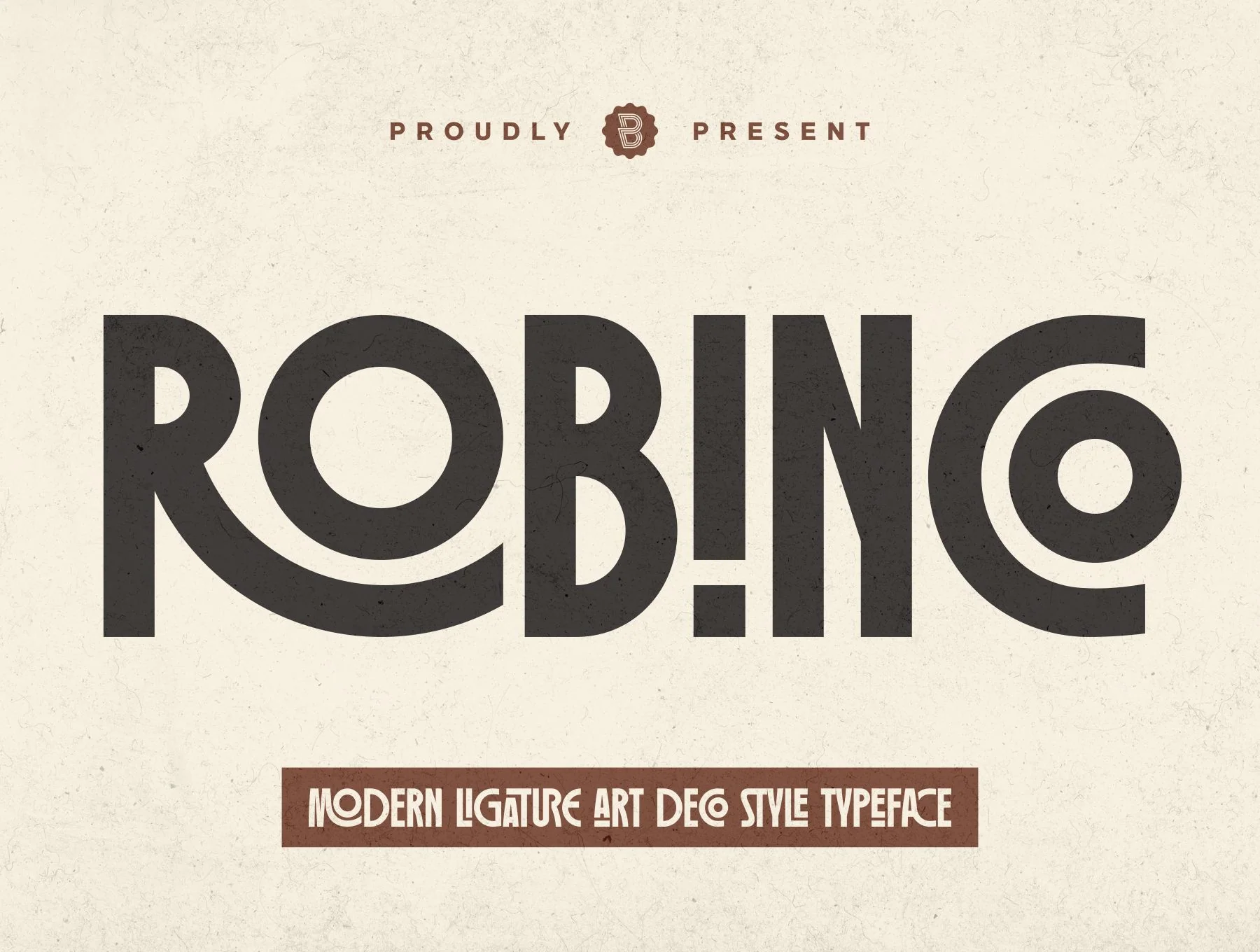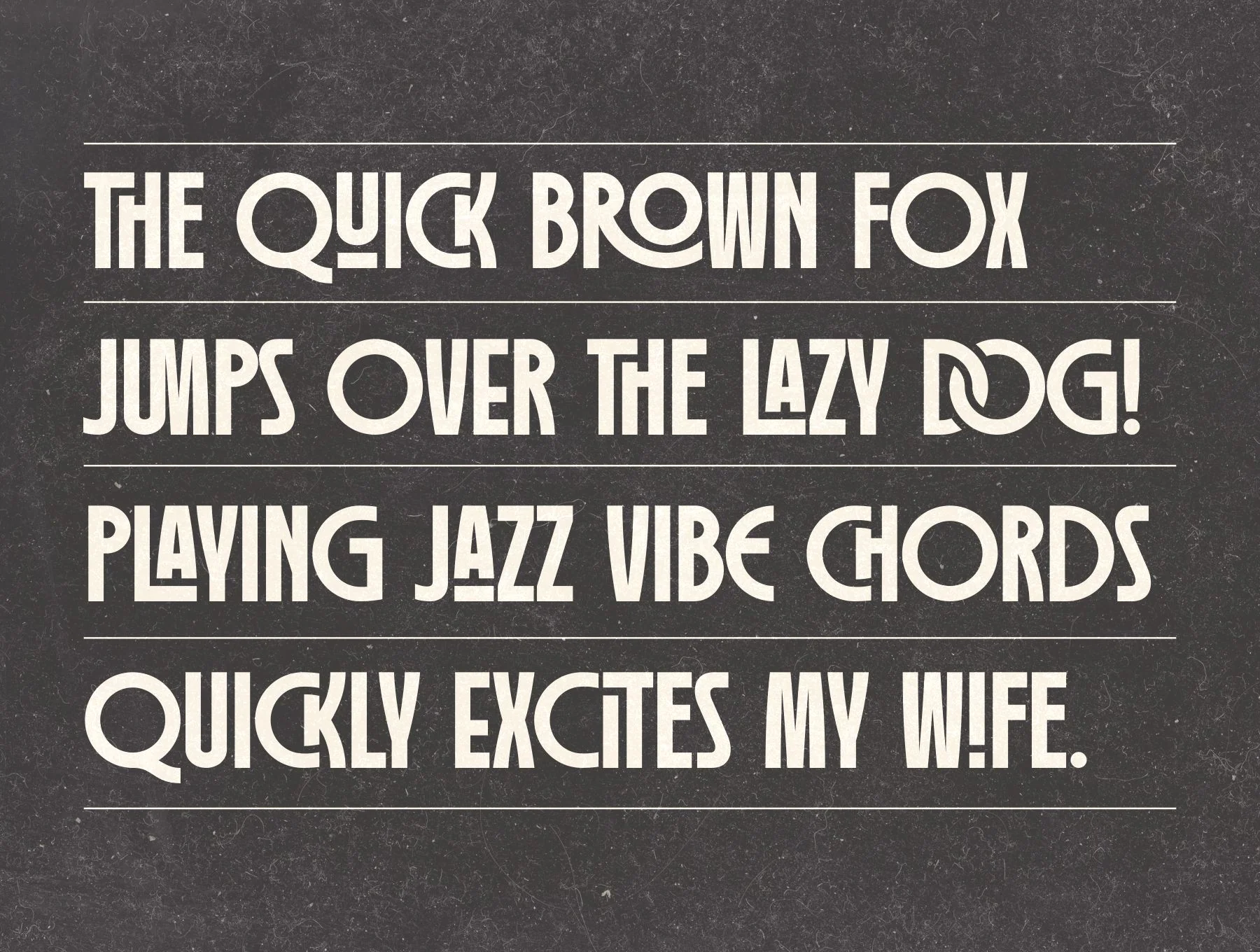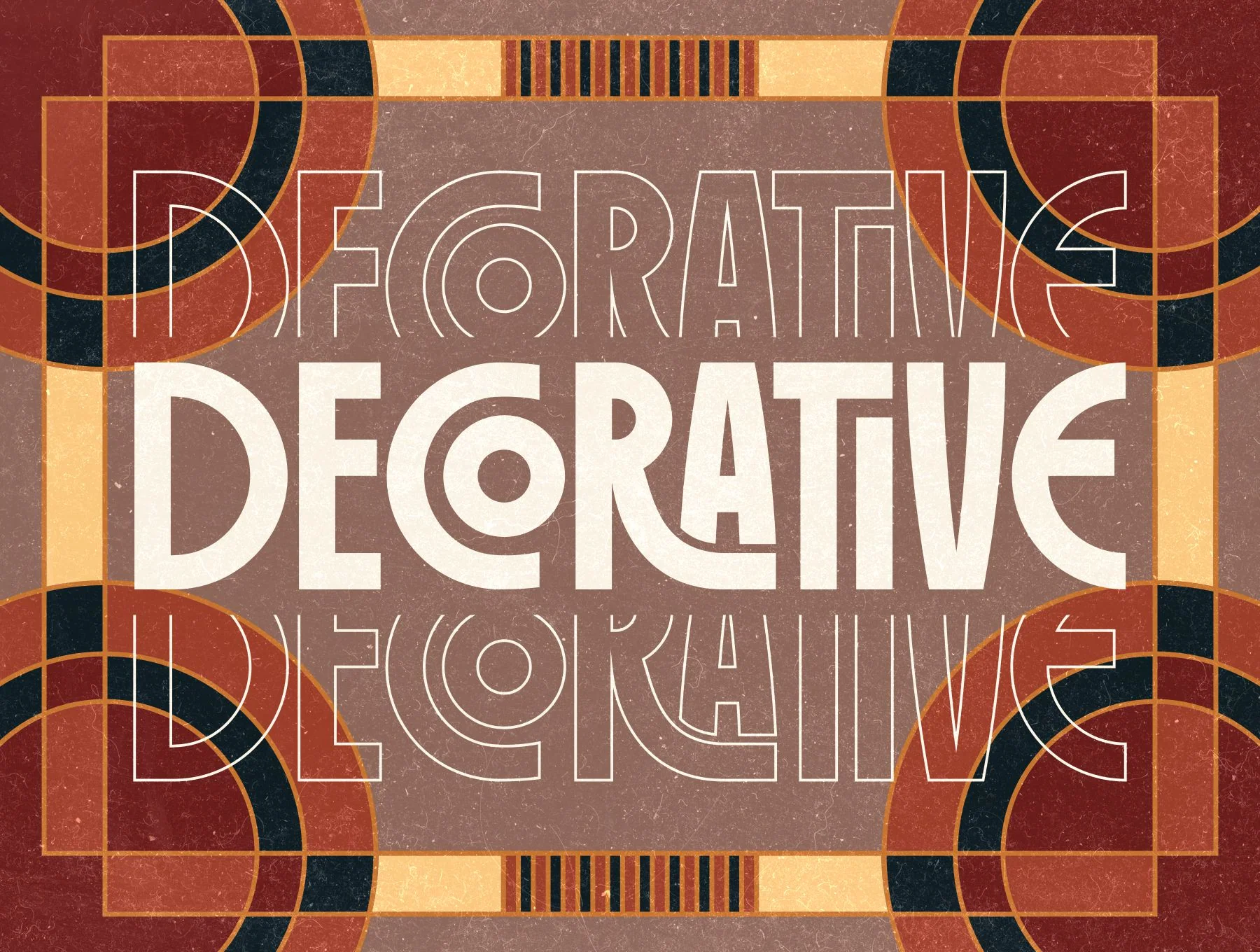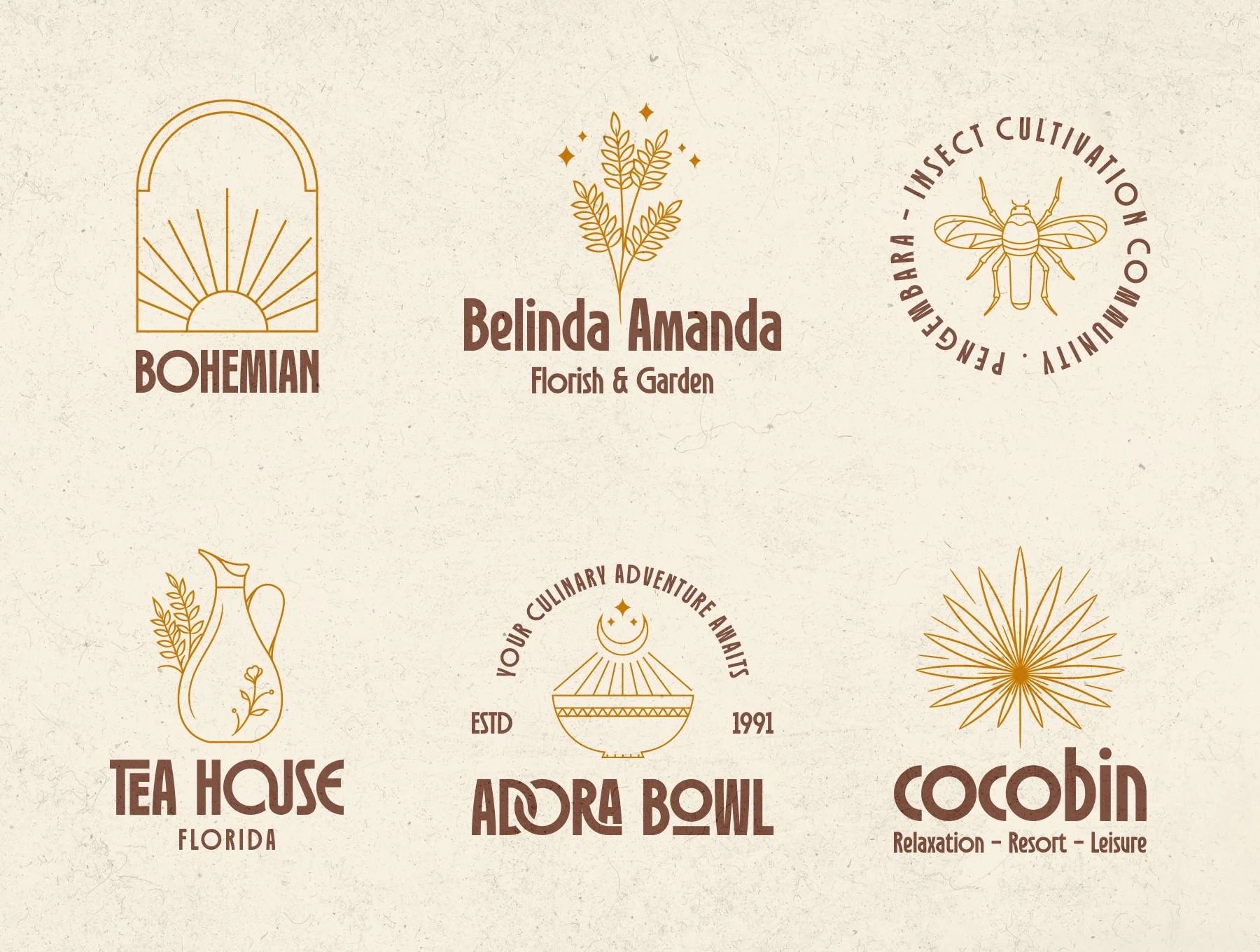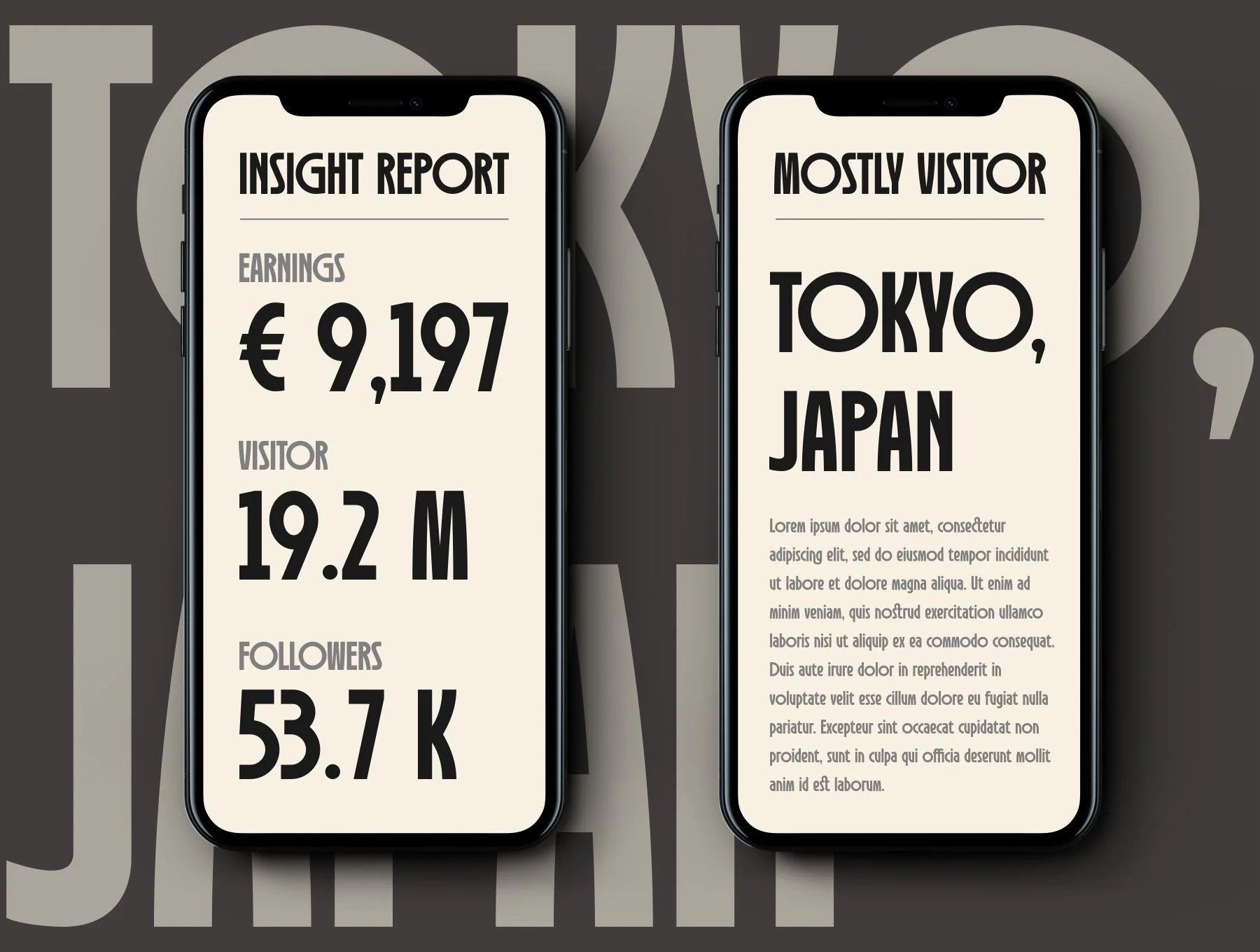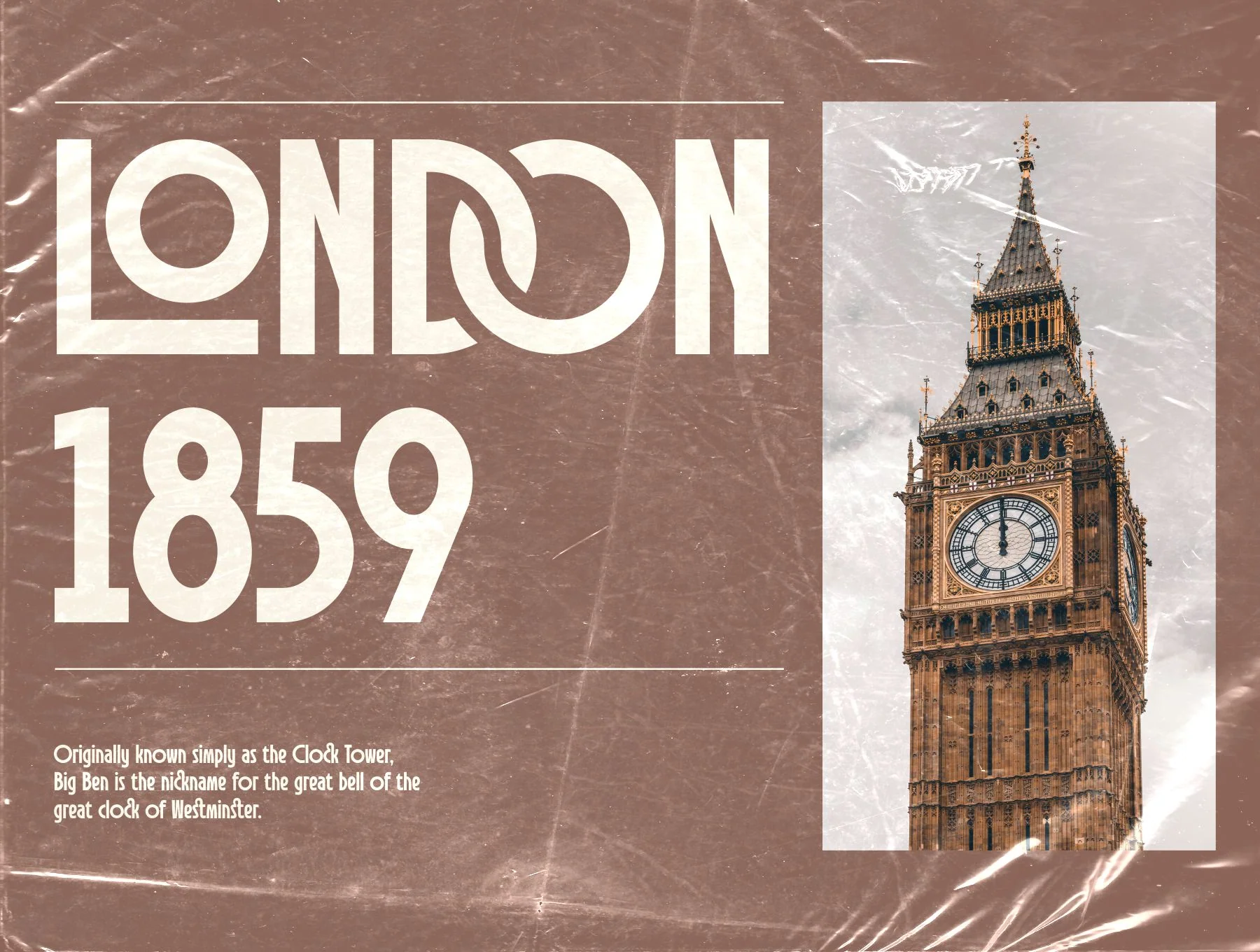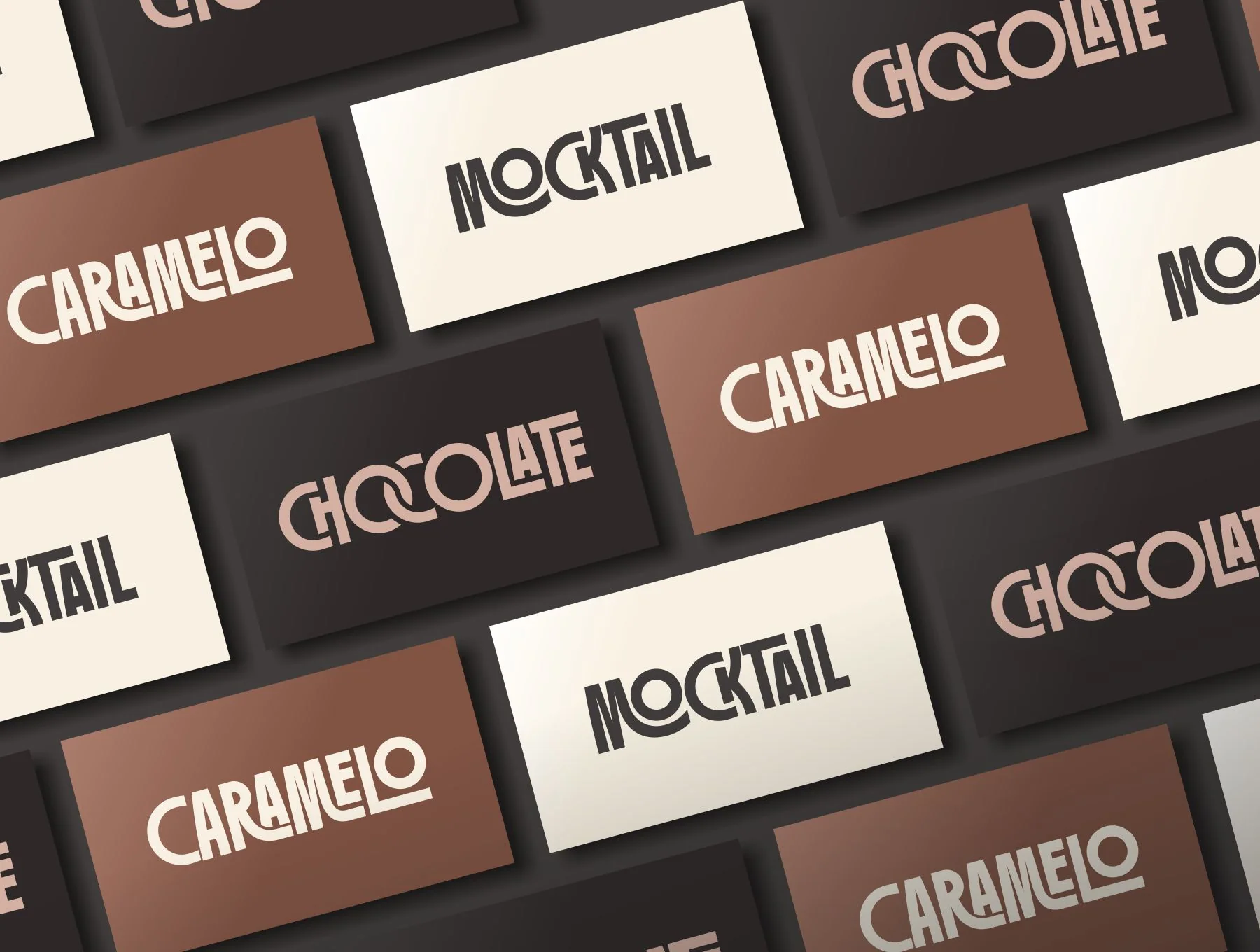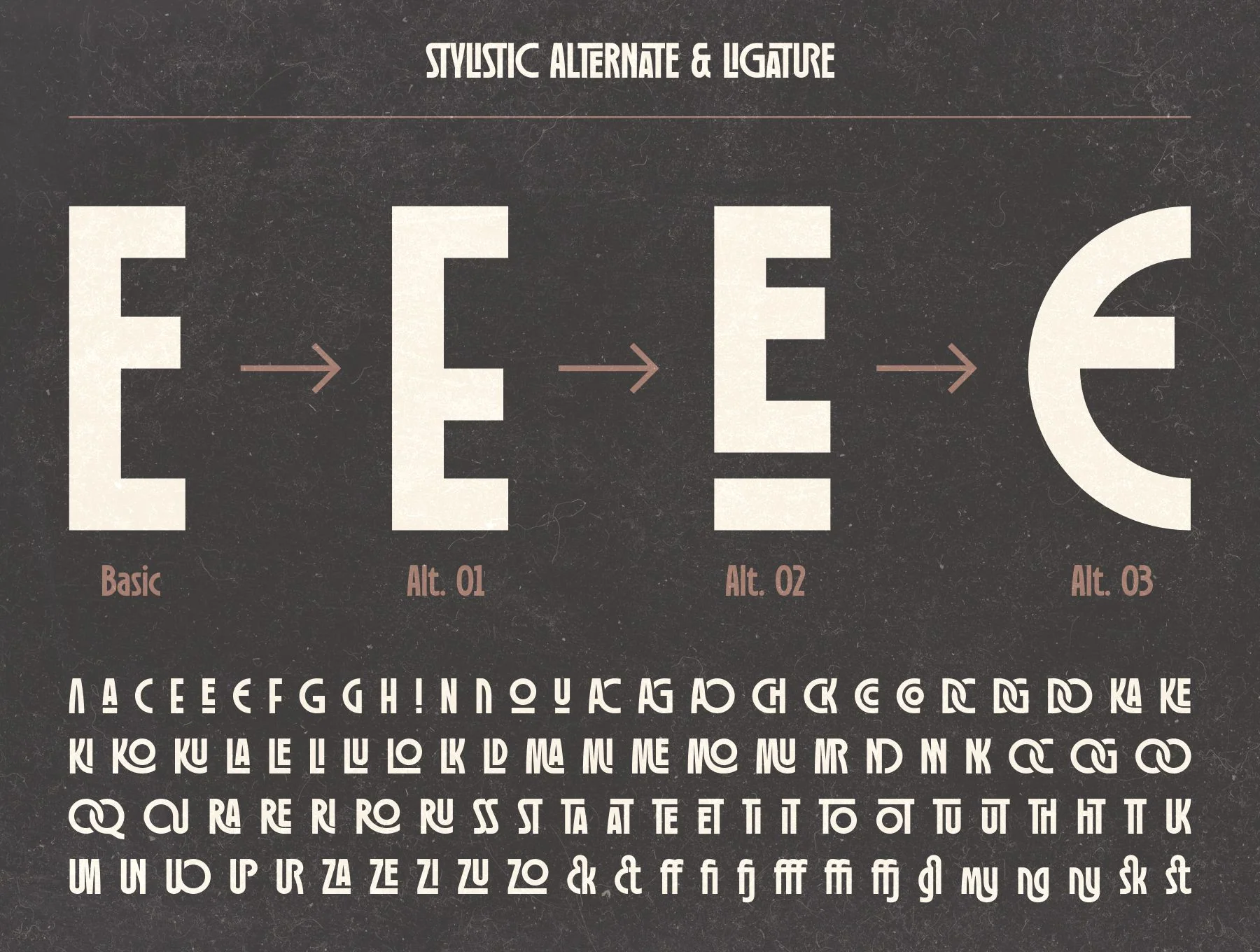
Robinco Font
Contemporary Art Deco typeface featuring elegant ligatures
Regular glyph set
Ligatures and stylistic variants
Supports numerous languages
Robinco is a contemporary Art Deco typeface with elegant ligatures, blending refined luxury, strong shapes, and geometric charm. Ideal for stylish packaging, labels, standout logos, posters, fashion projects, and more. Includes OTF, TTF, and WOFF files, basic glyphs, alternates, ligatures, symbols, punctuation, and multilingual support.